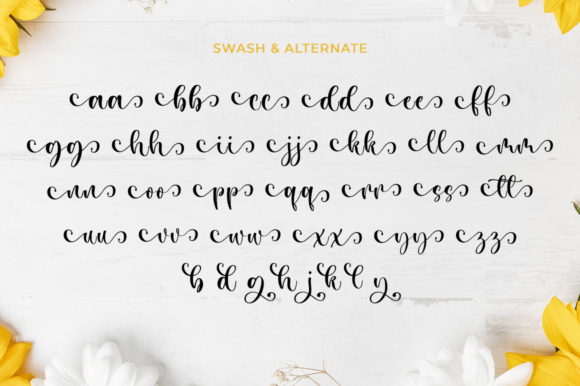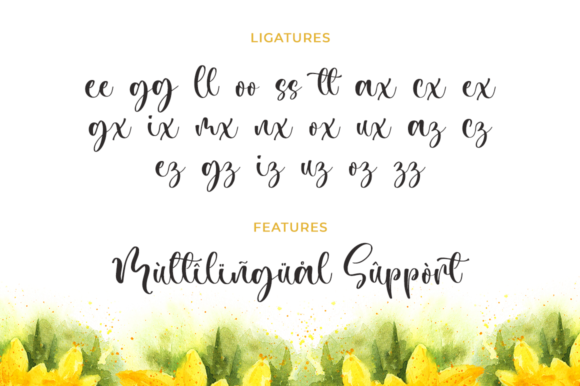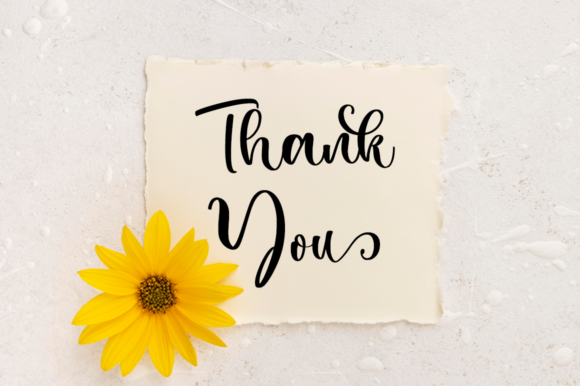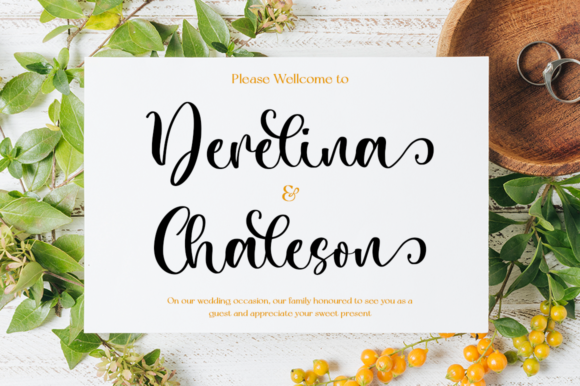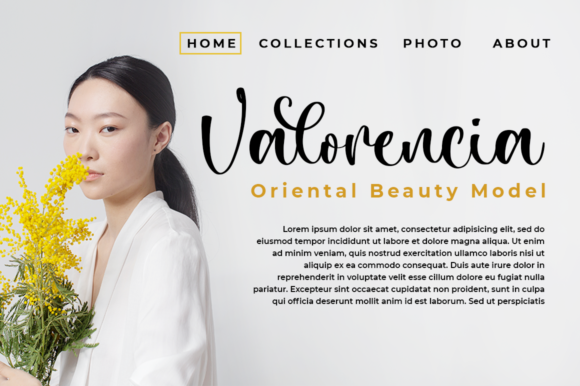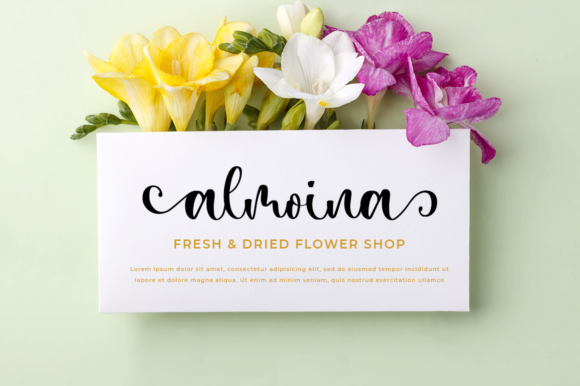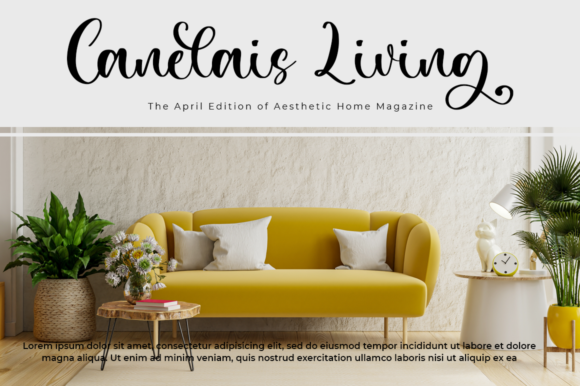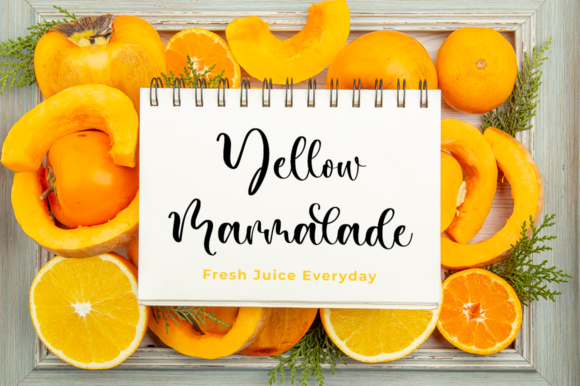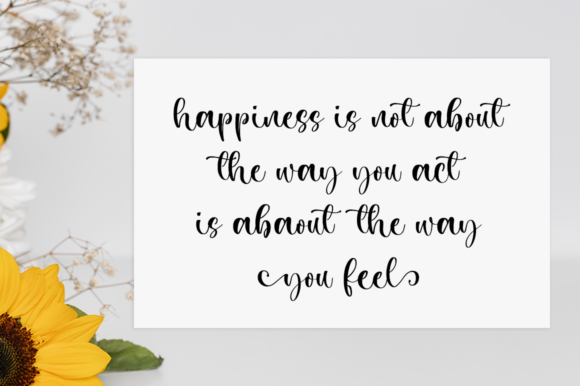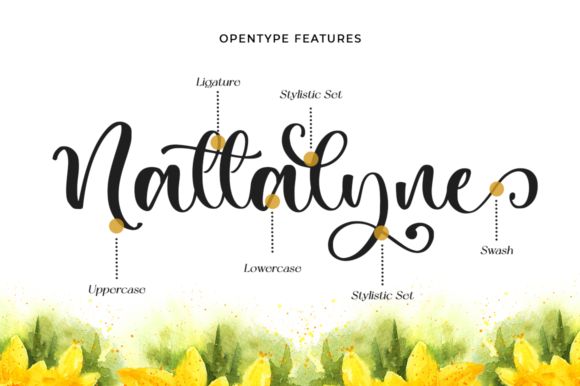
Wonderful Font
About Wonderful Font
Wonderful is a lovely and delicate script font that radiates elegance and class. This font is an excellent choice for those seeking a beautiful and refreshing look for their designs. Its graceful and refined aesthetic makes it a perfect fit for a variety of creative projects where an air of sophistication is desired. Notably, Wonderful is PUA encoded, ensuring convenient access to all its glyphs and swashes for seamless customization.
The charm of Wonderful lies in its delicate script design, which adds a touch of grace and beauty to your text. Whether used for invitations, branding materials, or other design elements, the font exudes a sense of sophistication that elevates the overall visual appeal.
The lovely nature of Wonderful extends to its versatility, making it suitable for a wide range of applications. From elegant wedding invitations to branding projects that require a refreshing and timeless touch, this font adapts effortlessly to diverse design contexts.
The PUA encoding feature enhances the user experience, granting designers easy access to a variety of glyphs and swashes. This flexibility empowers creatives to customize their text, ensuring that Wonderful becomes a personalized and unique expression of their creative vision.
In summary, Wonderful is more than just a font; it’s a lovely and delicate script that adds elegance and class to your designs. Let it be the key element that brings a beautiful and refreshing look to your invitations, branding projects, and various creative endeavors, making each piece a delightful expression of sophistication.